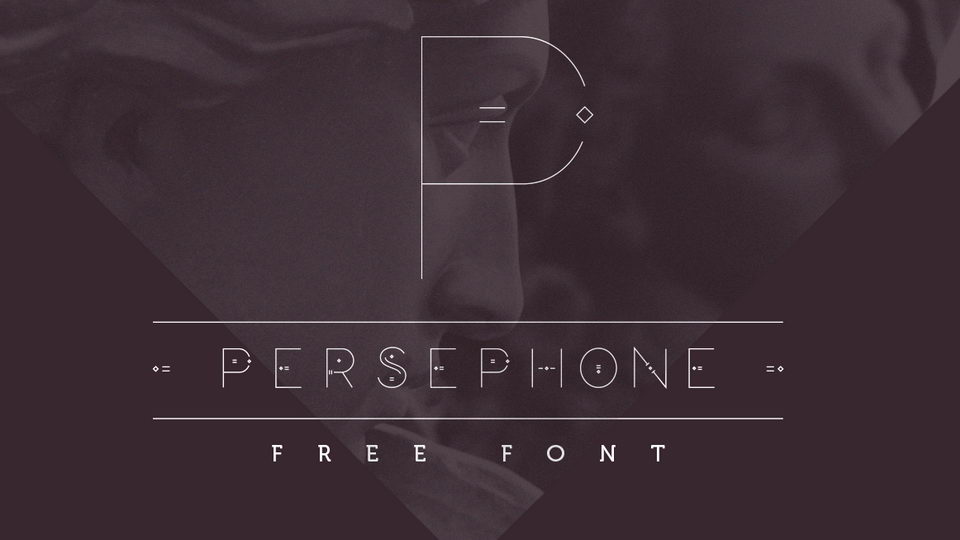
Download Persephone font, a unique geometric typeface inspired by the greek goddess. Persephone font comes in two styles and it’s ideal for logos, branding, posters, social media and other beautiful artworks.
Designer: Petros Afshar